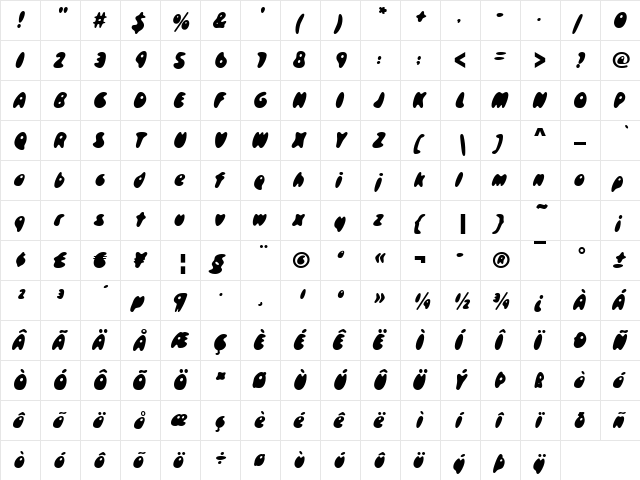
Spokane Regular
Design Context for Spokane Typeface
Spokane is a composed and adaptable typeface that performs quietly and consistently across a wide range of design contexts.
Pro Tip: Pair Spokane with a font of contrasting weight or personality to build a more expressive typographic hierarchy.